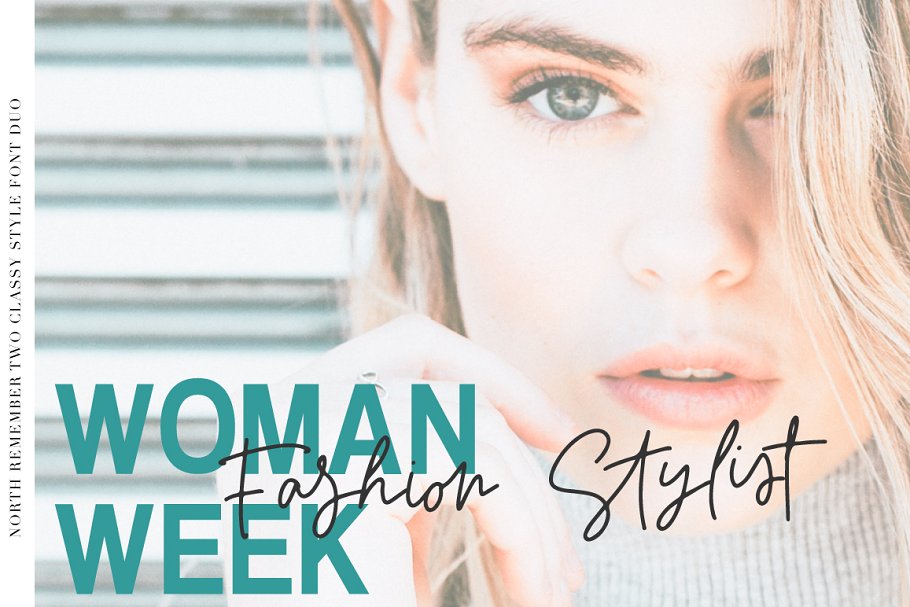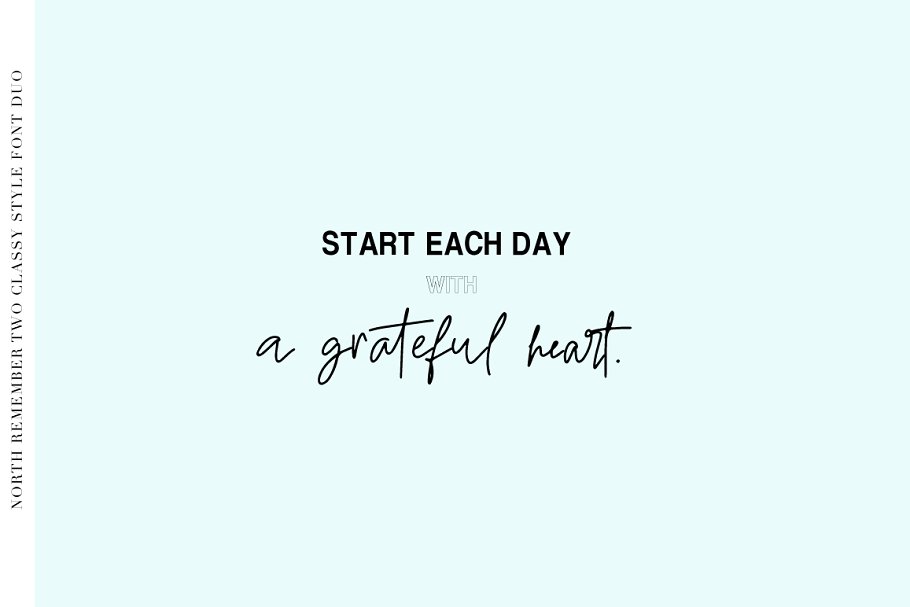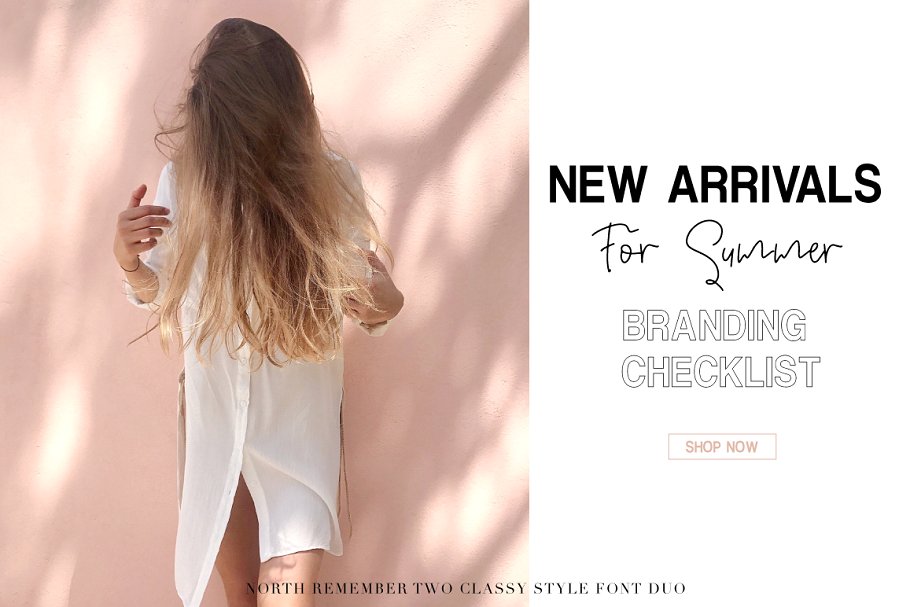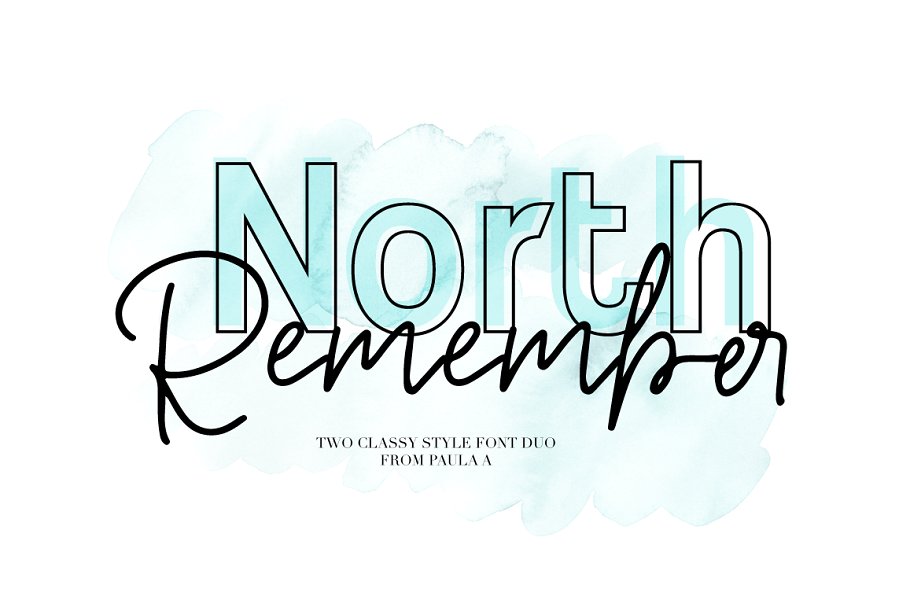
North Remember Font Duo
introducing North Remember font Duo – A fashionable font perfect for high impact headlines
Every single letter has been creative carefully and Perfectly Playful new font pair. This font is a perfect script designed for making your set of invitations, Brand, blog posts, and more completely beautiful
The script has an alternate character set